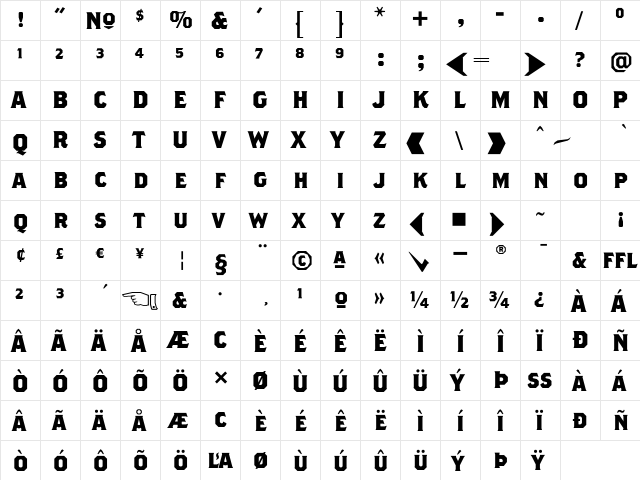
BrothersAlternates Bold
Design Context for BrothersAlternates Typeface
BrothersAlternates is a composed and adaptable typeface that performs quietly and consistently across a wide range of design contexts. Its bold stroke weight gives it real presence on the page.